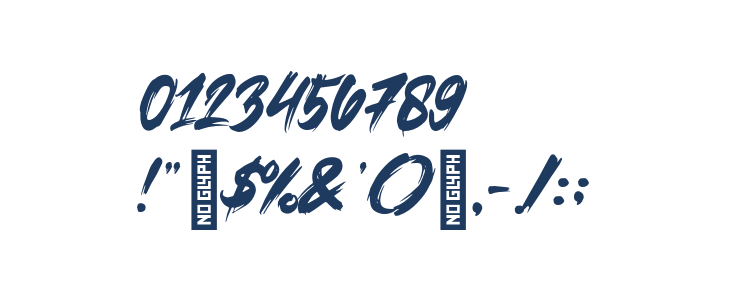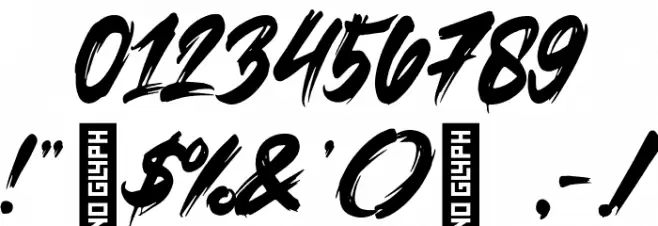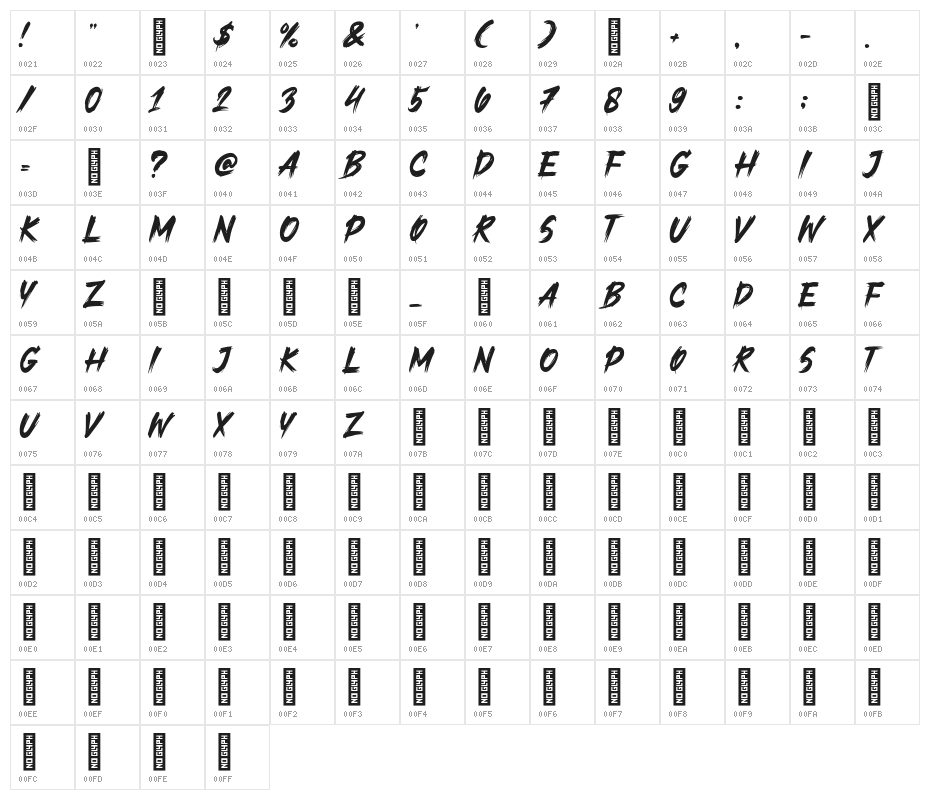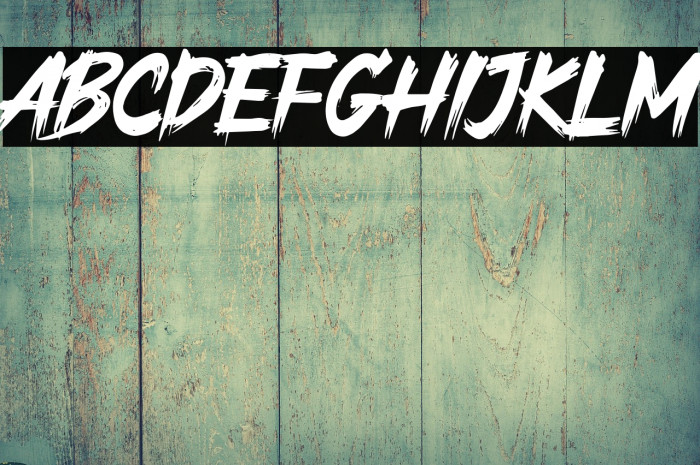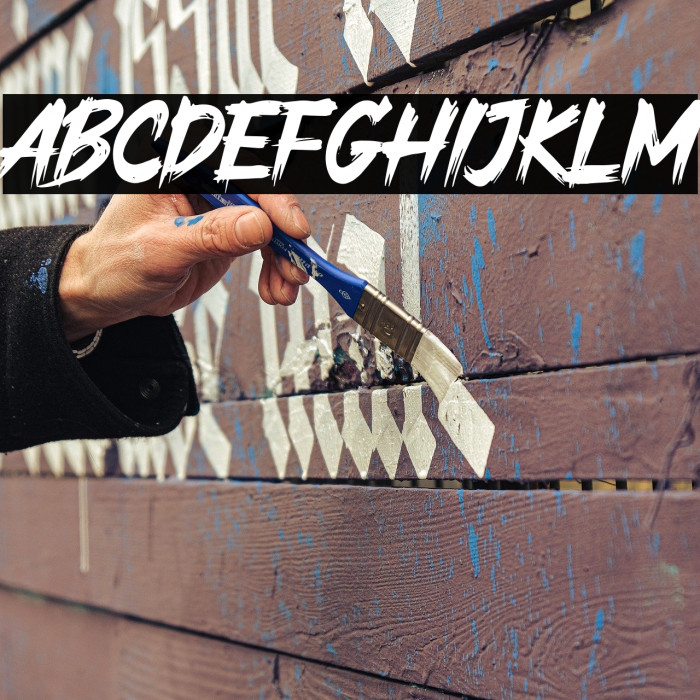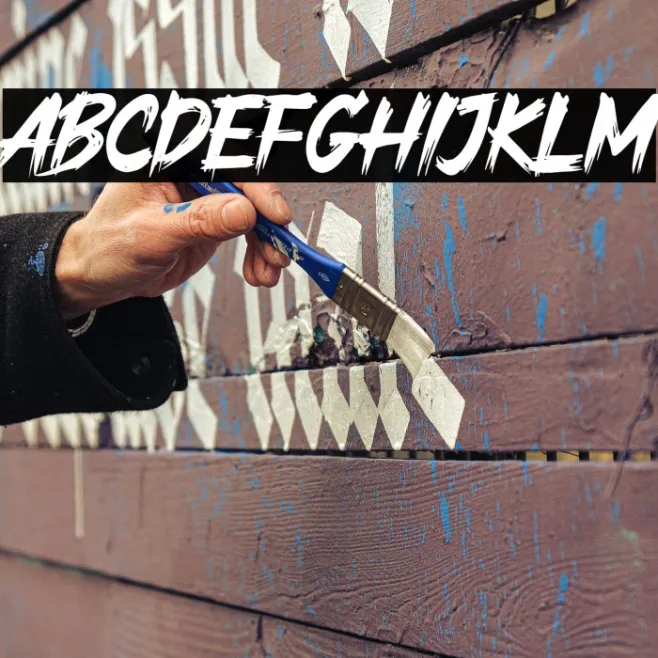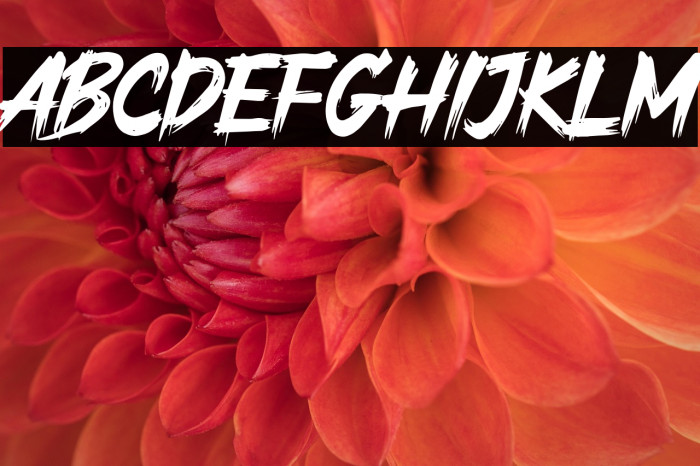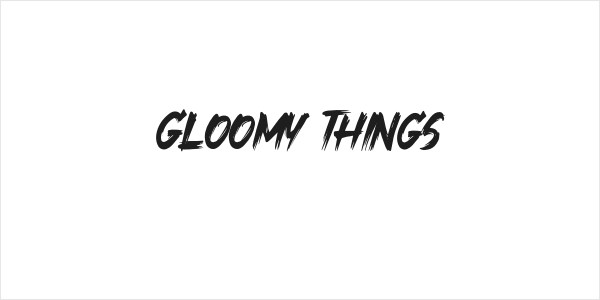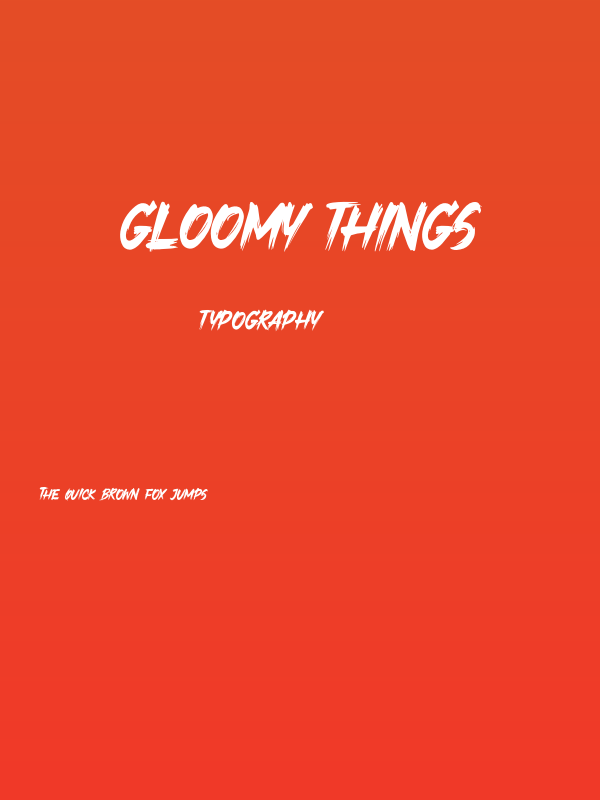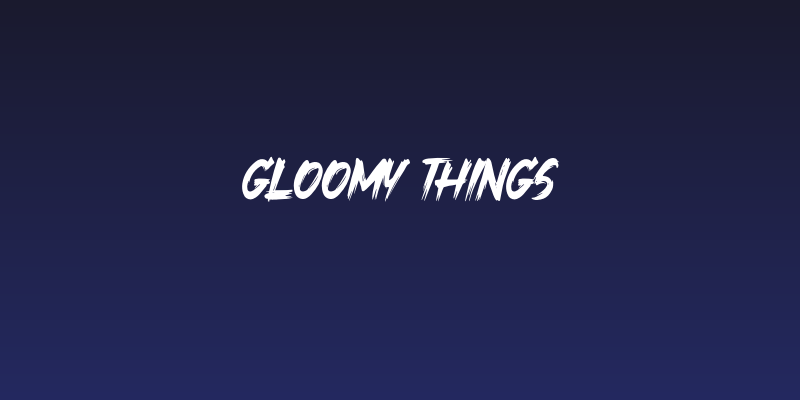
Gloomy Things Font
Gloomy Things Description
This font features a bold and dynamic brush script style, characterized by its energetic strokes and expressive forms. The letters are designed with a sense of motion, giving them a lively and impactful appearance. The uppercase and lowercase letters maintain a consistent style, with sharp angles and varying stroke widths that create a sense of urgency and excitement. The numbers and special characters follow the same aesthetic, ensuring a cohesive look across all text elements. This font is ideal for projects that require a strong visual impact and a sense of movement.
| Proposed Projects | Ideal for posters, album covers, branding, and any design needing a bold, energetic touch. |